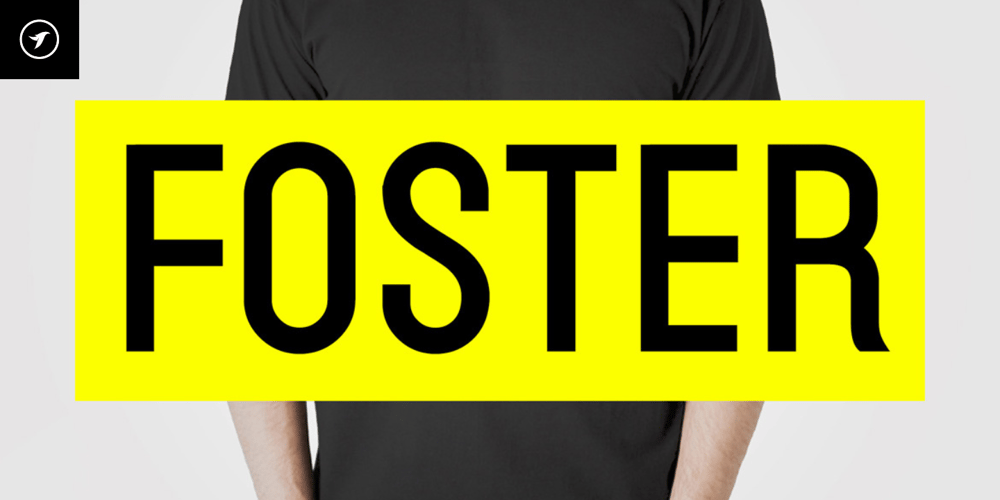
Foster Font Family was designed by Jean Johnson and published by Designova. Foster contains 8 styles and family package options. FOSTER is the modern typeface for presenting headlines, big text, branding, logotypes & display usage. The typeface is perfect for creating outstanding logos promotional content and marketing graphics that can grab the attention of your clients. Please see the examples shown above to get an idea about the capability of this typeface.